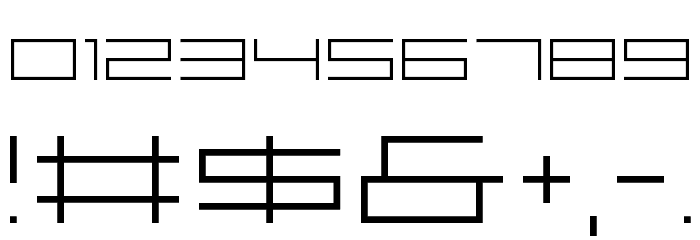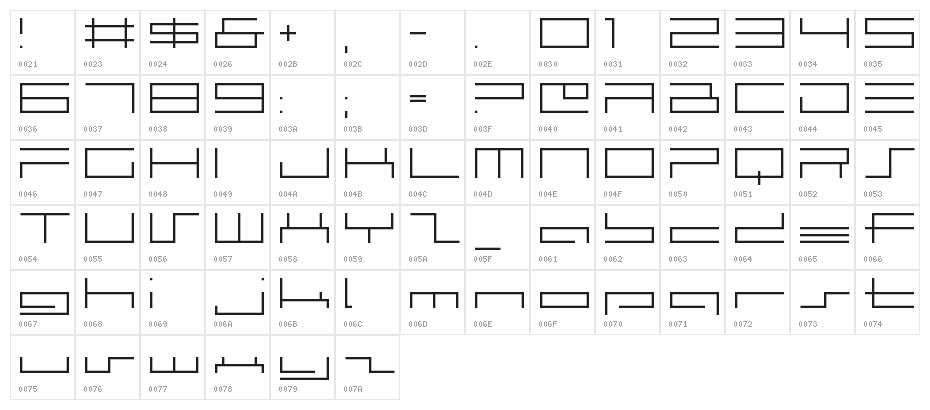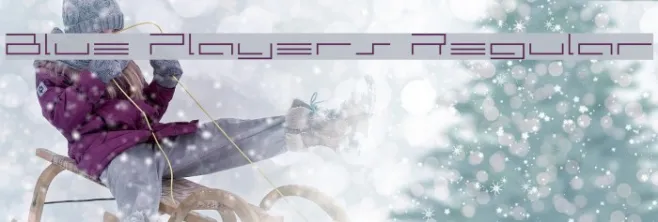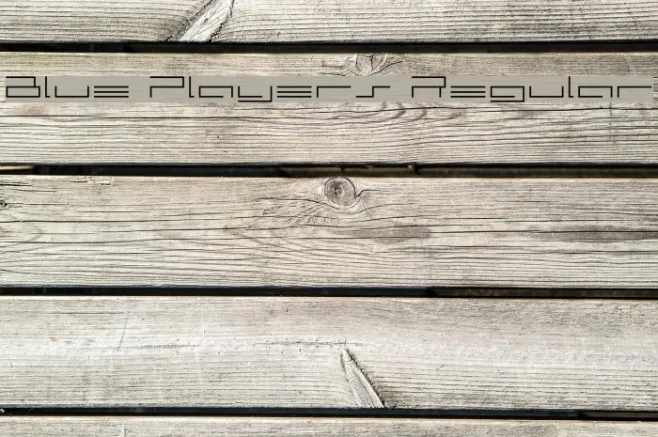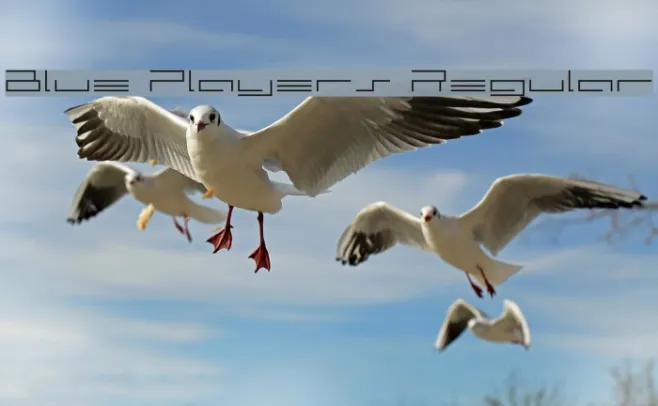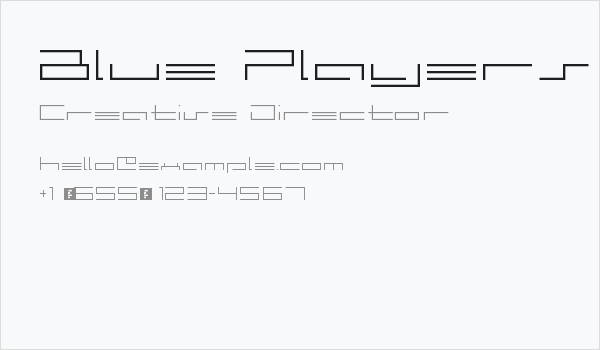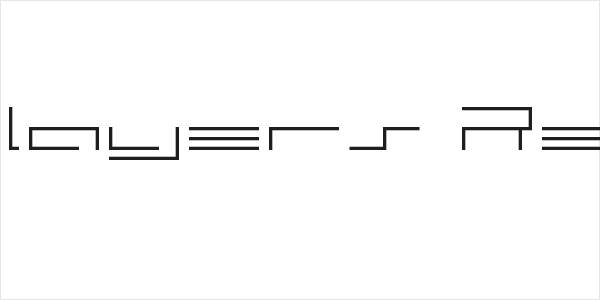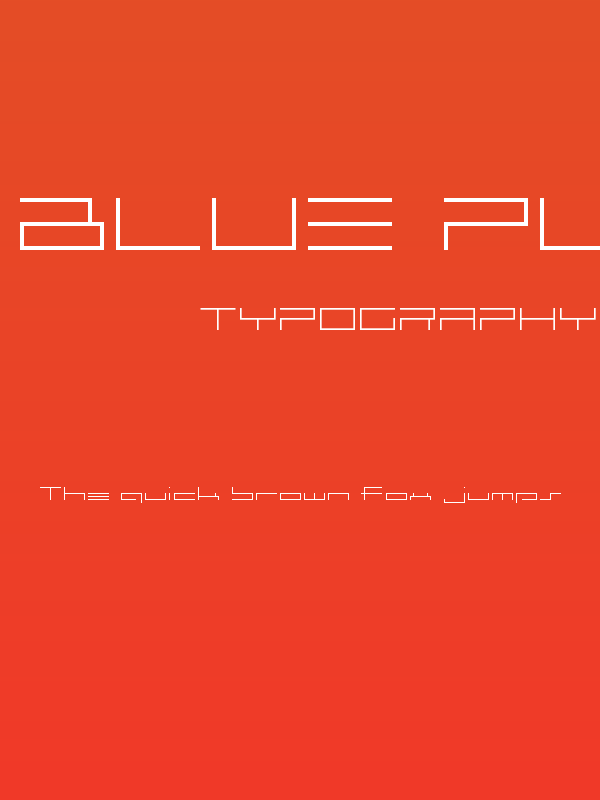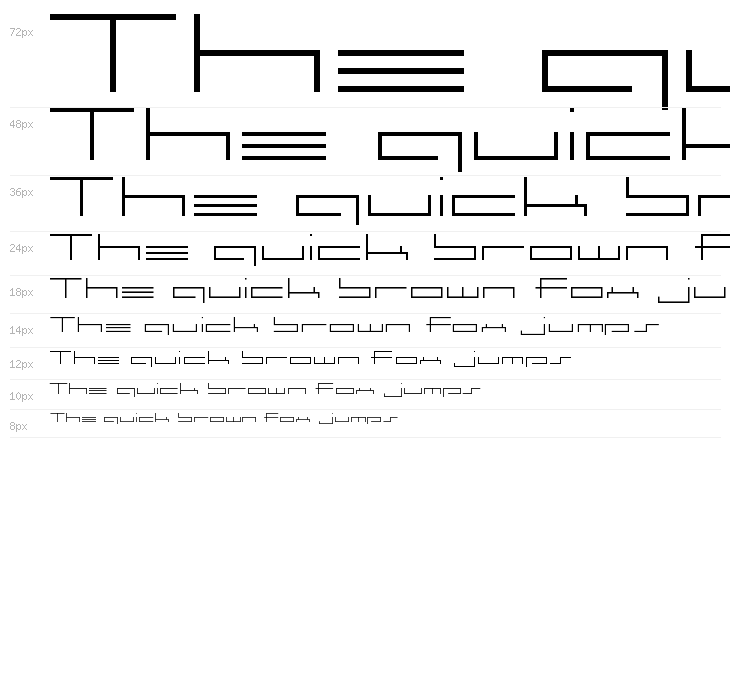
Blue Players Regular Font
Blue Players Regular Description
This font features a geometric and futuristic design, characterized by its linear and angular structure. The characters are composed of straight lines and right angles, giving it a digital or tech-inspired appearance. The uppercase and lowercase letters maintain a consistent style, with minimal curves and a focus on horizontal and vertical strokes. The numerals and special characters follow the same design principles, ensuring uniformity across all glyphs. This font's unique style makes it stand out, ideal for projects that require a modern and technological aesthetic.
| Proposed Projects | Ideal for tech branding, digital interfaces, video game design, and futuristic-themed projects. |